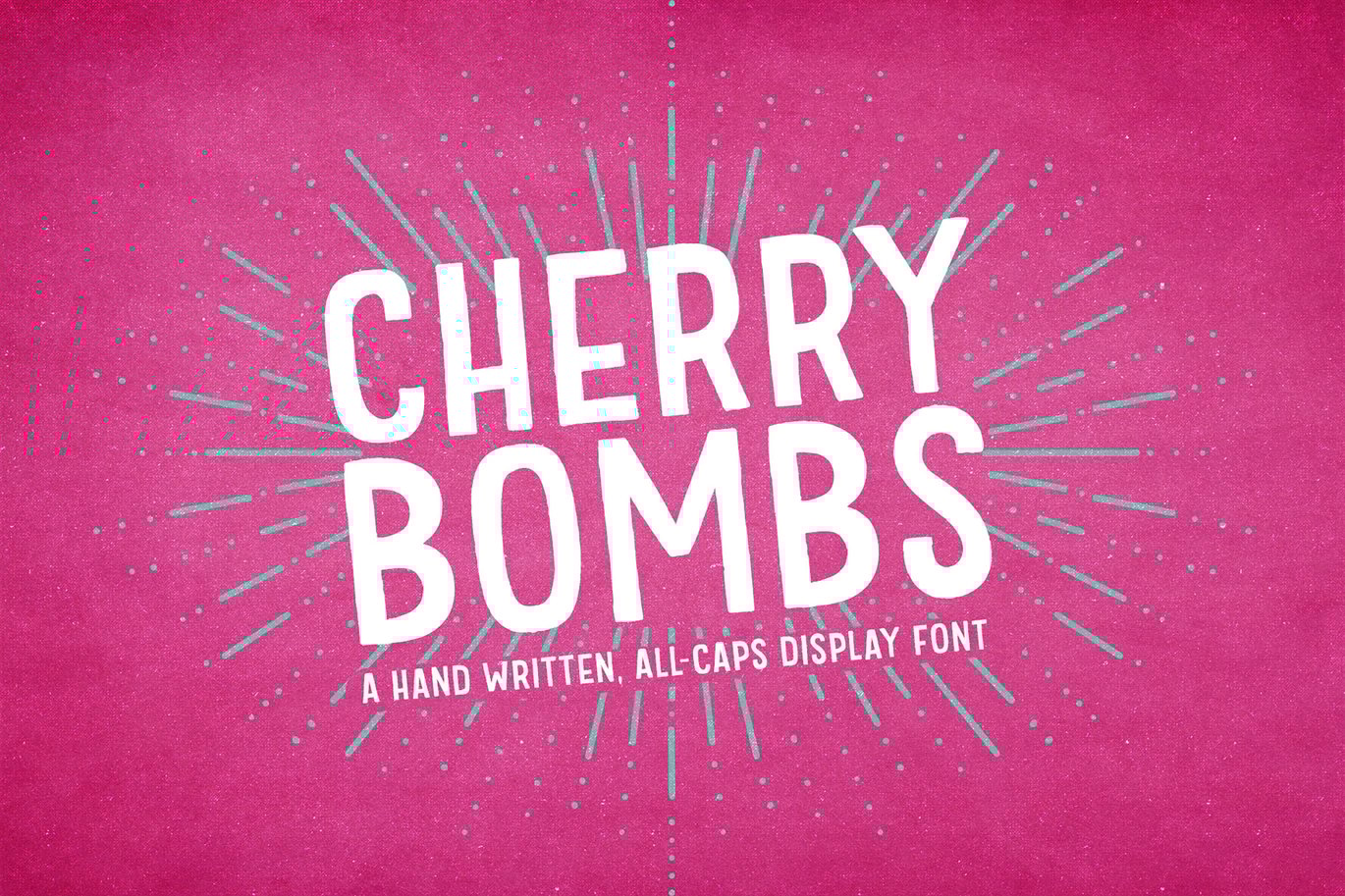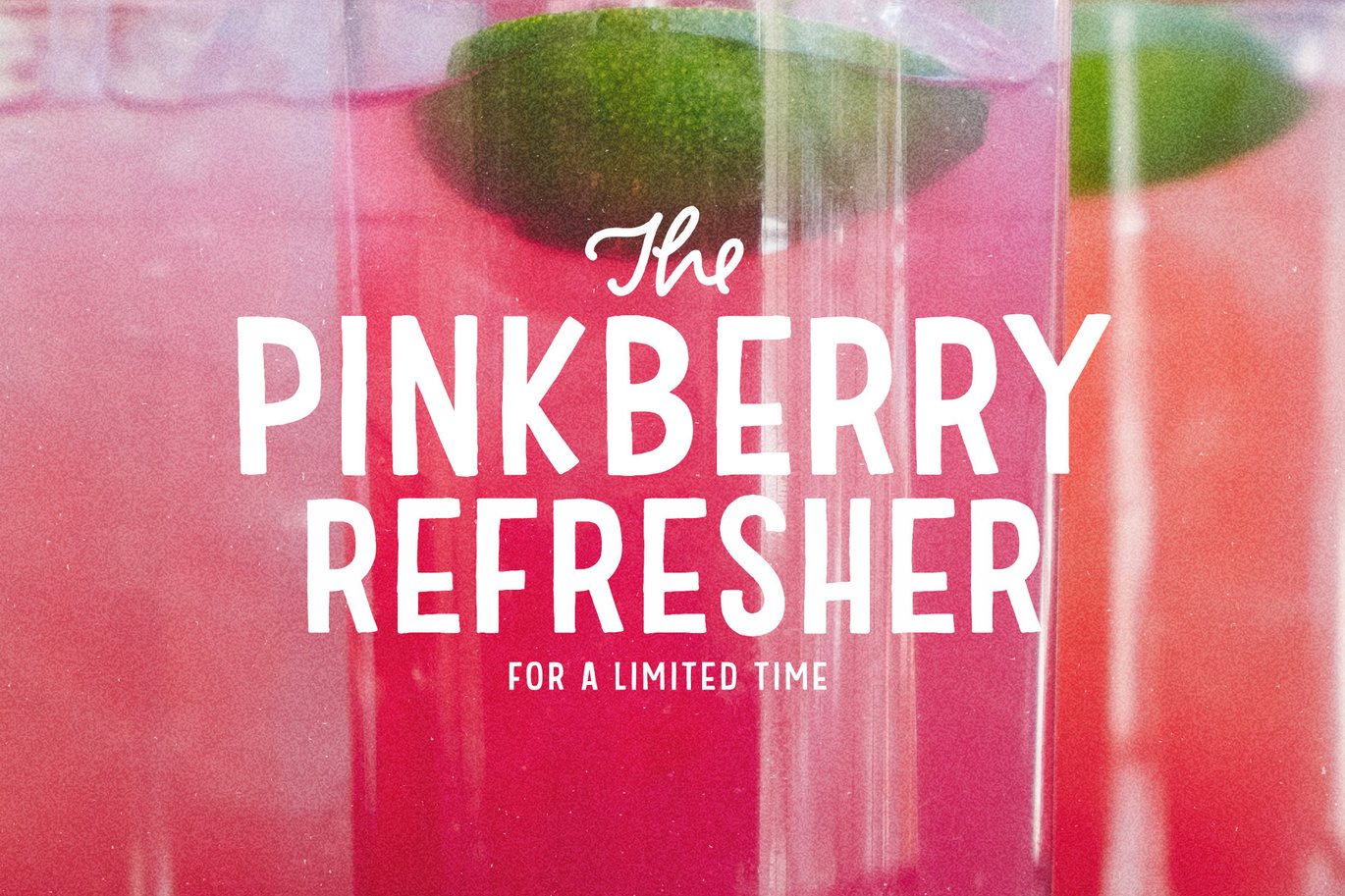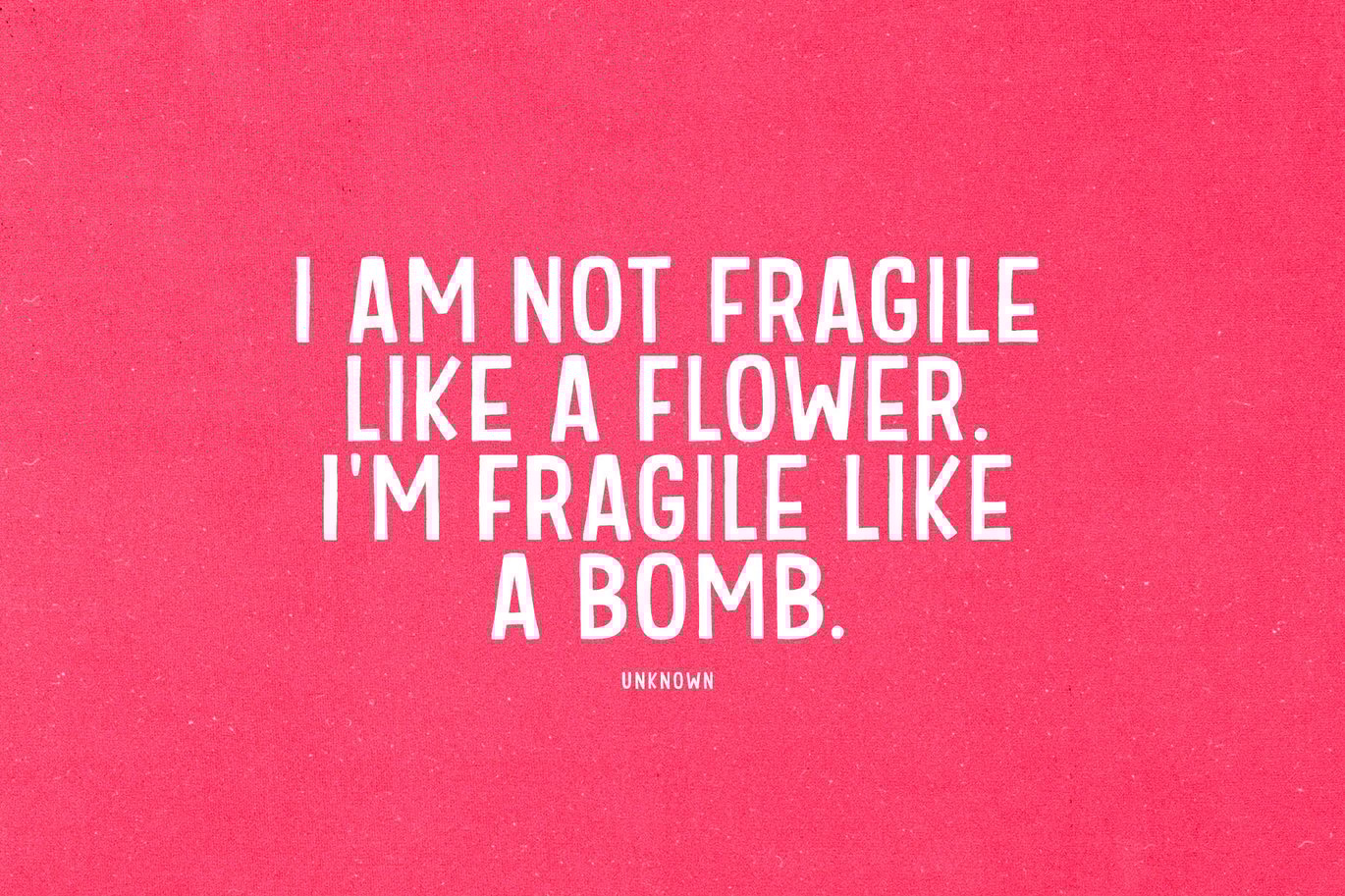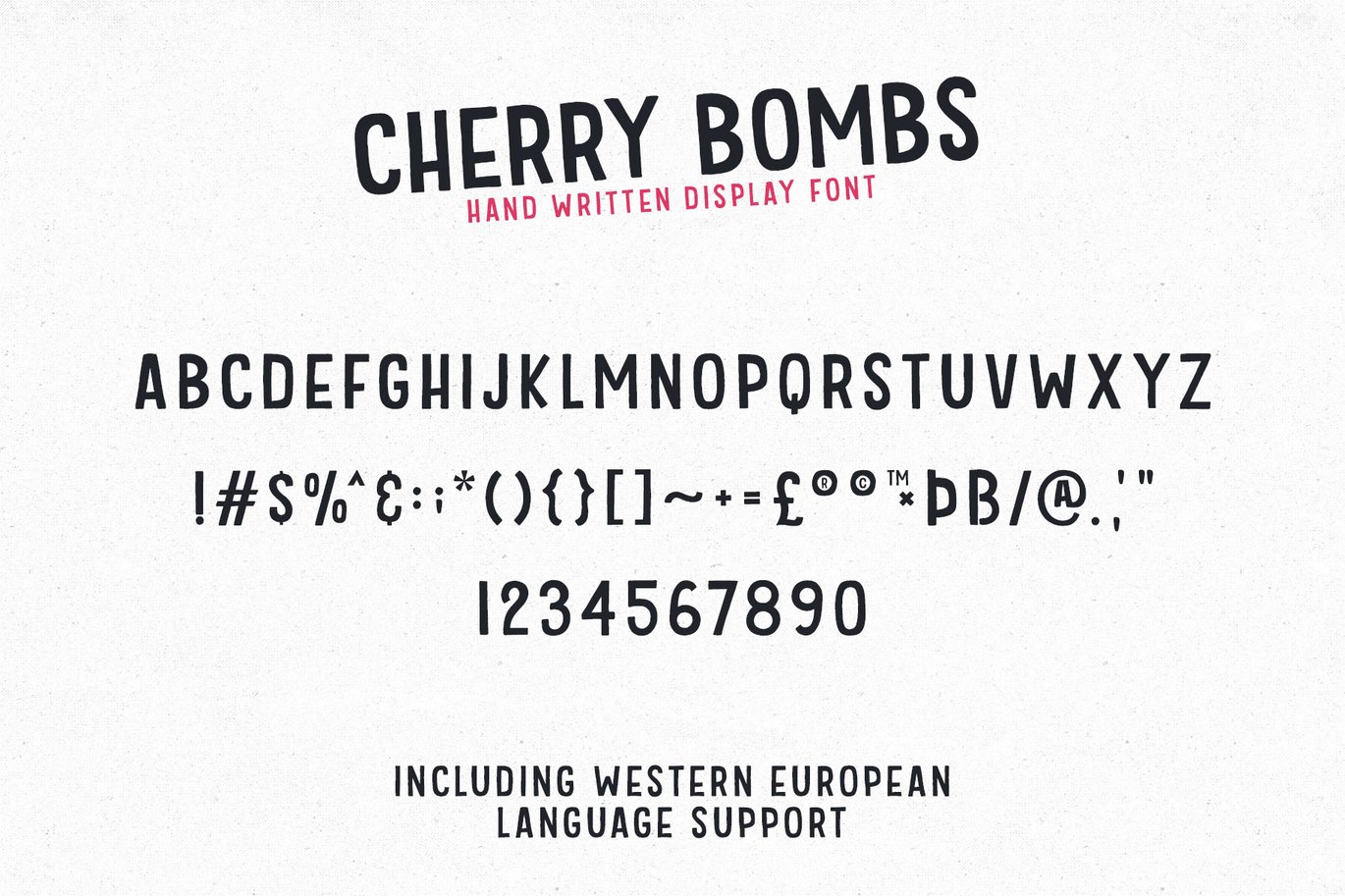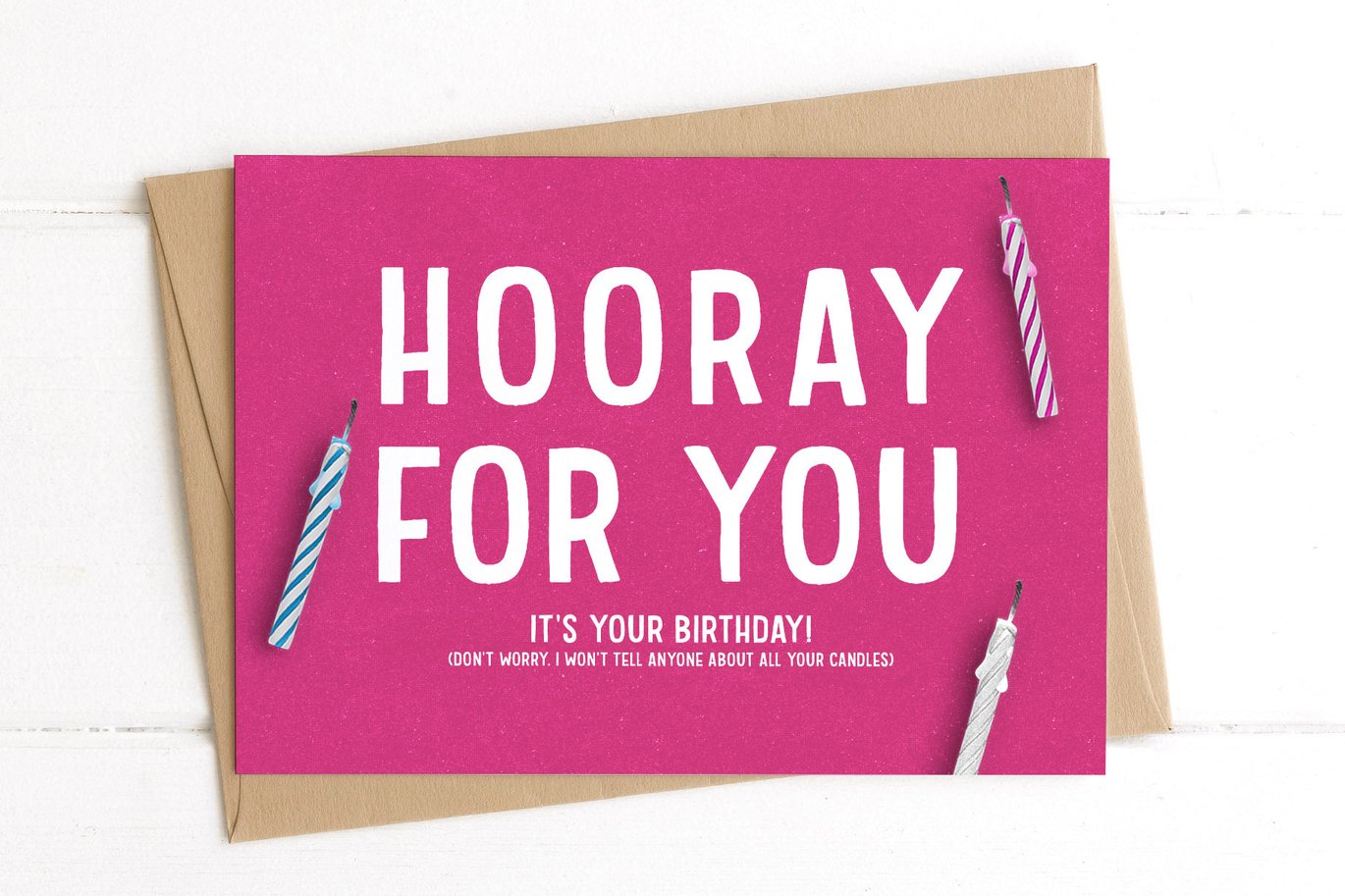
Cherry Bombs Display Font
Cherry Bombs is a fun, handwritten, all-caps font that is perfect for cards, invites, logos, birthday invitations, greeting cards, quotes, branding, and more. Cherry Bombs looks lovely with a script too, so don’t be afraid to pair it up, or let it stand alone.